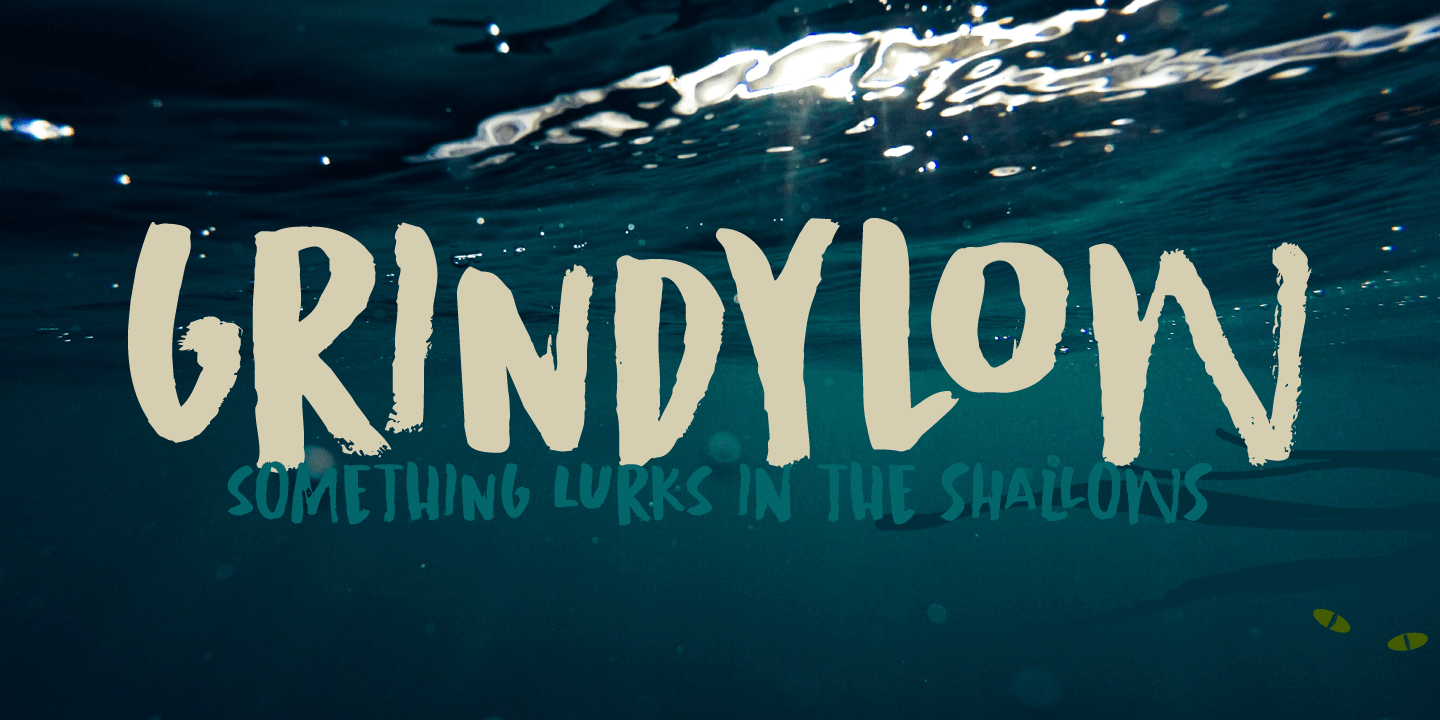
Grindylow
In English folklore (in particular that of Yorkshire and Lancashire), Grindylow is a creature that dwells in rivers and lakes and is said to grab children who come too close to the water’s edge and drown them. It is thought the name Grindylow may be connected to the monster Grendel.
Grindylow font does not grab children; it is a rather messy handmade brush font. I used a cheap brush and Chinese ink to create the glyphs.
Comes with discretionary double letter ligatures for the lower case.